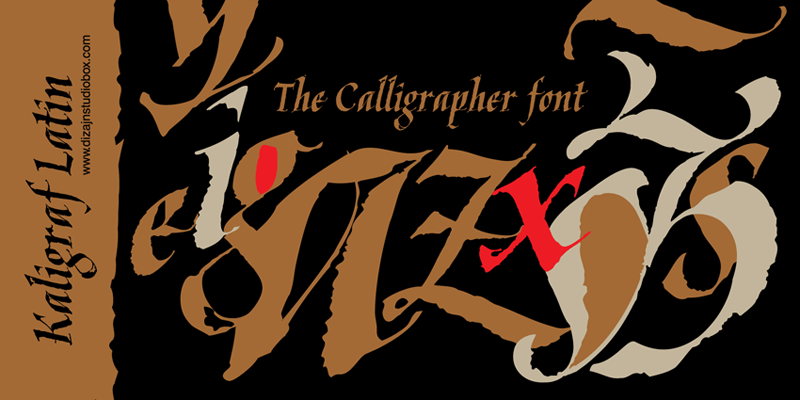
All characters are formed from personal handwriting, which was taken from the pages of my calligraphy.I hope that it will help those who are less skilled at calligraphic writing. Font includes a few ornaments that can be useful in creating typographic pages. At the request of many users of "Kaligraf Latin" font, I created the Cyrillic version "Kaligraf Cyr". I hope that those who use the Cyrillic alphabet will enjoy using it. All those who wish to use the font for commercial purposes can donate by buying some of my calligraphic or other font at MyFonts, following link: http://www.myfonts.com/foundry/PosterizerKG/ Thanks to all that encourage creative work! author, Lazar Dimitrijevic, Posterizer KG Foundry |